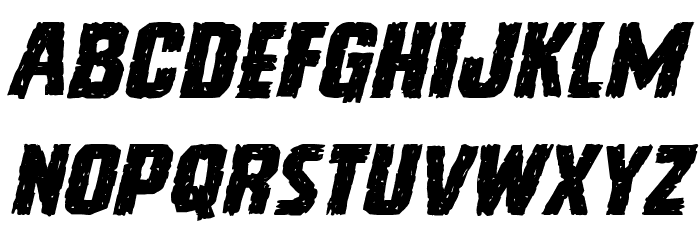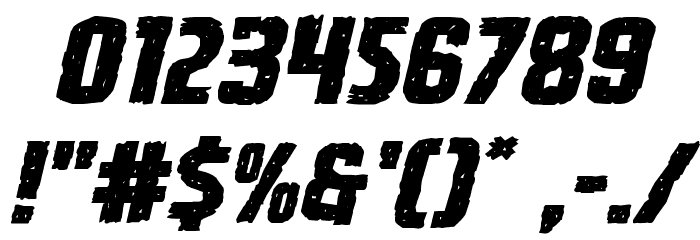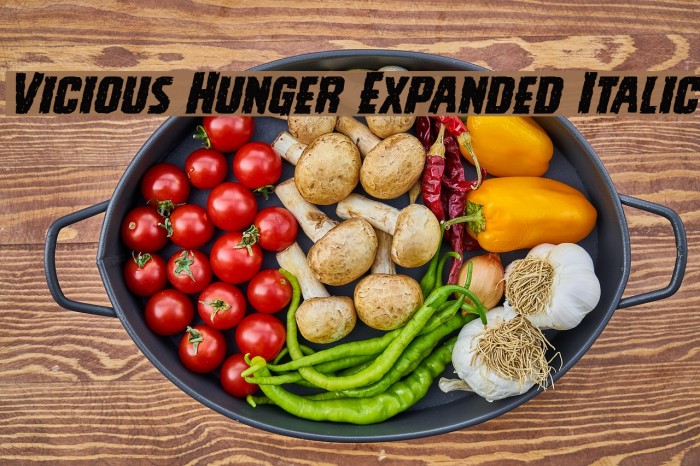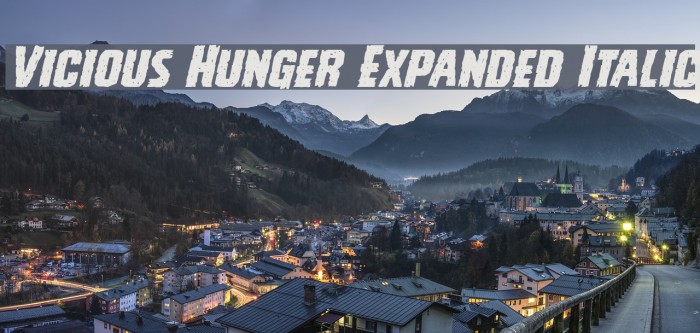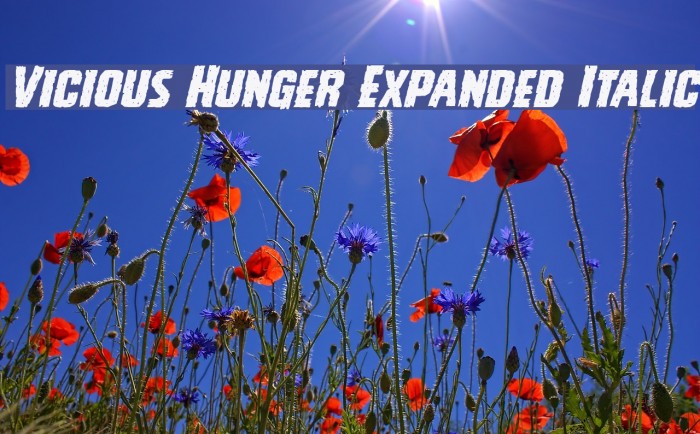
Vicious Hunger Expanded Italic Font
This font is a bold, dynamic typeface with a distressed, grunge aesthetic. The characters are heavily textured, giving them a rugged and edgy appearance. The strokes are thick and uneven, creating a sense of movement and energy. The italic slant adds to the aggressive and rebellious feel, making it stand out with a unique personality. The expanded width of the characters enhances its boldness, making it suitable for impactful designs. The font maintains a consistent style across uppercase, lowercase, numbers, and special characters, ensuring versatility in various design contexts.
A bold, distressed, and italic typeface with a grunge aesthetic.
- Proposed Projects: Ideal for music album covers, event posters, urban apparel branding, and edgy graphic designs.
- Overall Style: Modern, Grunge